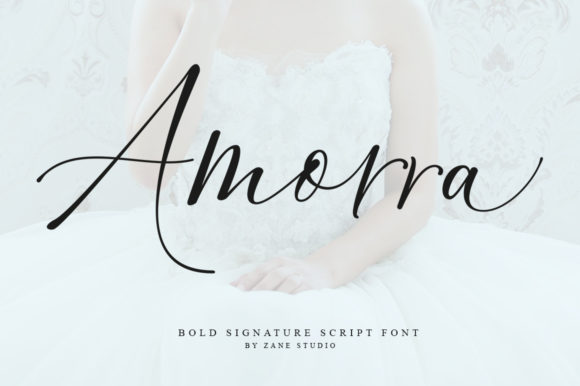
Introducing Amorra Script Font, where elegance and boldness intertwine to bring life to your creative visions. This script font is a masterpiece, a testament to the art of digital calligraphy that carries a distinctive touch and personality. Its bold strokes and elegant curves are designed to evoke emotions, transform ideas into unforgettable experiences, and leave a lasting impact on your audience.
Discover a font that's not just a collection of letters and characters but a portal to a world of aesthetic allure and visual impact. Amorra Script Font is a journey for the eyes, a symphony of thoughtfully crafted shapes that flow together in perfect harmony. Its strong, confident presence commands attention, making it ideal for headlines, logos, posters, branding, and any design project seeking to make a statement.
As you explore the depths of Amorra Script Font, you'll immerse yourself in a realm of natural elegance. Each stroke, every curve, every twist and turn exudes a sense of refinement and grace. It's a perfect choice for invitations, wedding stationery, greeting cards, and other personal projects where a touch of elegance can elevate the ordinary into the extraordinary.
One of the remarkable qualities of Amorra Script Font is its versatility. It effortlessly adapts to a variety of design styles, from classic and vintage to modern and contemporary. Its inherent beauty shines through, whether paired with bold colors or subtle hues, playful illustrations or minimalist design. Experiment with Amorra Script Font and unlock a world of creative possibilities, where your imagination knows no bounds.
Created by the talented Zane Studio, Amorra Script Font is a labor of love, a testament to the pursuit of typographic excellence. Its every curve, every stroke, every detail has been meticulously crafted to deliver a font that's not just functional but also a work of art. Trust Amorra Script Font to add a touch of sophistication, a spark of creativity, and a dash of personality to your next design project.
With Amorra Script Font, you hold the key to unlock a world of creative expression. Let your imagination soar, let your creativity flow, and experience the transformative power of a font that's destined to leave an indelible mark on the hearts and minds of your audience. Embrace Amorra Script Font today and embark on a journey of visual storytelling that will captivate, engage, and inspire.